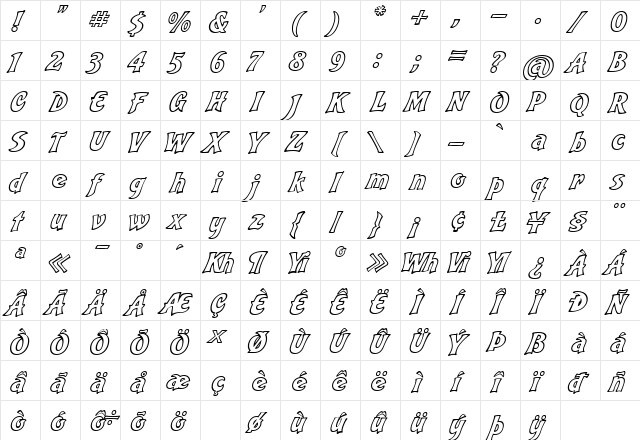
Bakery Script Open Regular
Design Context for Bakery Script Open Typeface
Bakery Script Open flows with the natural rhythm of handwritten lettering, making it ideal for designs that call for warmth and personal expression.
Font Pairing: Combine Bakery Script Open with a simple geometric sans for maximum contrast — the tension between flowing curves and clean structure is a classic typographic pairing.
Pro Tip: Use Bakery Script Open for short runs of text — names, titles, or taglines. Extended body copy in script faces tires the eye quickly.